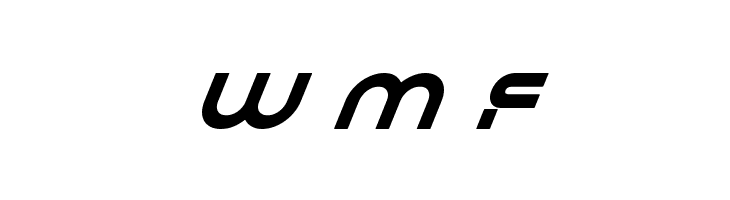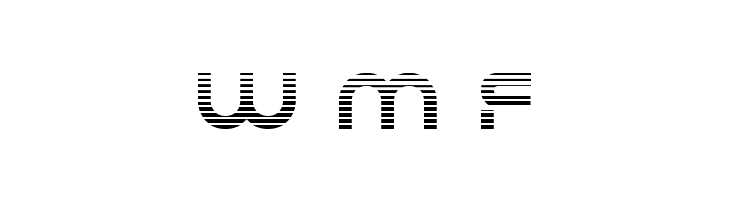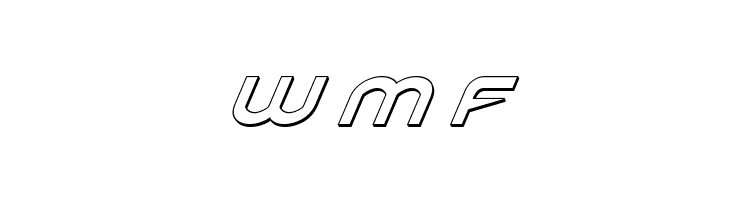
Yukon Tech Font
A futuristic, geometric font with bold, angular shapes and a sci-fi aesthetic.
Yukon Tech Expanded Font
A futuristic, geometric font with bold, expanded letterforms.
Yukon Tech Bold Font
A bold, futuristic font with geometric shapes and sharp angles.
Yukon Tech Expanded Italic Font
A futuristic, italicized font with expanded, angular characters.
Yukon Tech Italic Font
A futuristic, italicized font with angular shapes and a tech-inspired design.
Yukon Tech Semi-Bold Font
A futuristic, geometric font with bold lines and unique cutouts.
Yukon Tech Shadow Italic Font
Futuristic italic font with a shadow effect and geometric design.
Yukon Tech Condensed Font
A futuristic, geometric font with bold, condensed letterforms and unique cutouts.
Yukon Tech Shadow Font
A futuristic, geometric font with a shadow effect for a 3D appearance.
Yukon Tech Gradient Italic Font
A futuristic, gradient italic font with a tech-inspired, dynamic design.
Yukon Tech Halftone Italic Font
A futuristic, italicized font with a halftone effect and bold geometric design.
Yukon Tech 3D Italic Font
A bold, italicized 3D font with a futuristic and dynamic style.
Yukon Tech Semi-Bold Italic Font
A futuristic, semi-bold italic font with sharp angles and smooth curves.
Yukon Tech Bold Italic Font
A bold, italicized font with a futuristic and tech-inspired design.
Yukon Tech Gradient Font
A futuristic, striped font with a bold, geometric design.
Yukon Tech Laser Font
A futuristic, geometric font with bold, angular letterforms and a stencil-like appearance.
Yukon Tech Leftalic Font
A futuristic, geometric font with a bold, left-leaning italic style.
Yukon Tech Condensed Italic Font
A futuristic, condensed italic font with bold, angular strokes.
Yukon Tech 3D Font